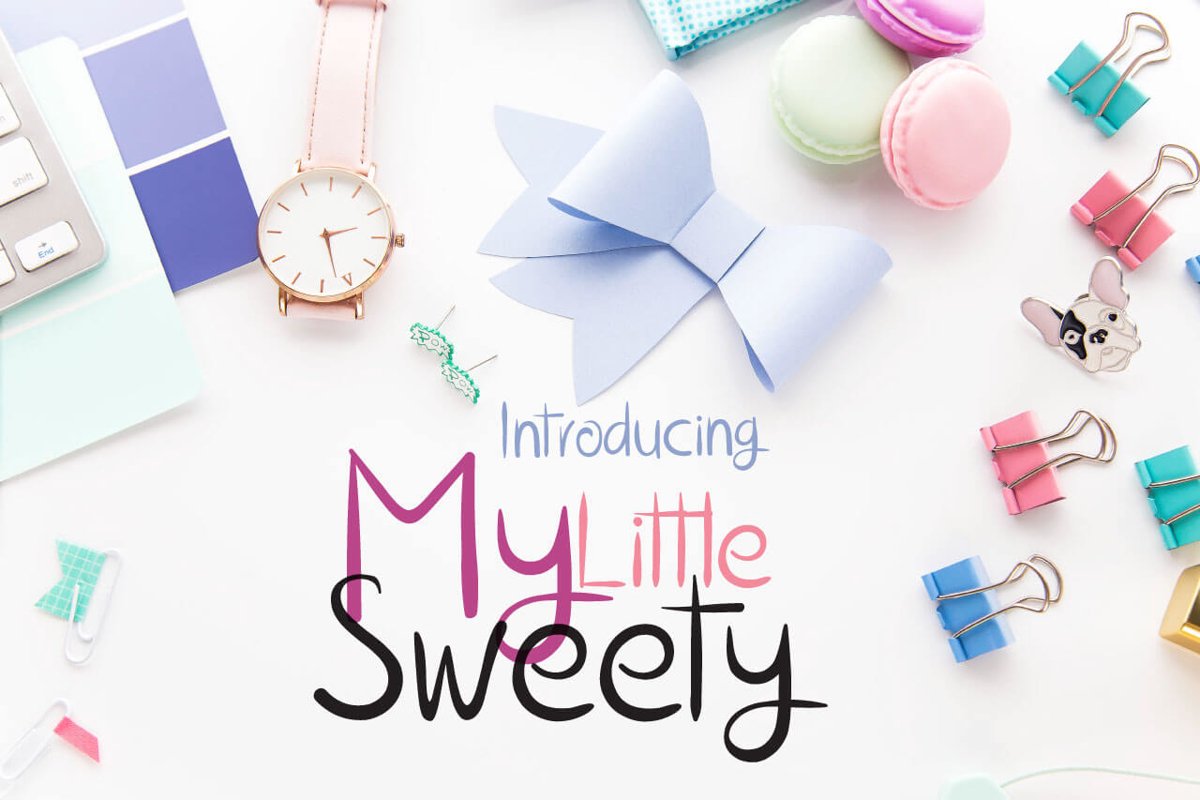
The My Little Sweety Font
My Little Sweety
Say hello to "My Little Sweety", a cute hand-drawn Font with fun display and script style that together make sweet designs!
Every single letter has been carefully crafted to make your text looks beautiful. This playful, feminine, and versatile font perfect for greetings, branding, labeling kids school supplies, backpacks, prints, invitations, crafting, quotes, merchandise, SVGs, social media and so much more.
With My Little Sweety, you can create your own logo, Christmas greeting cards, invitations or decorate your gifts, crafts or website in a minute!